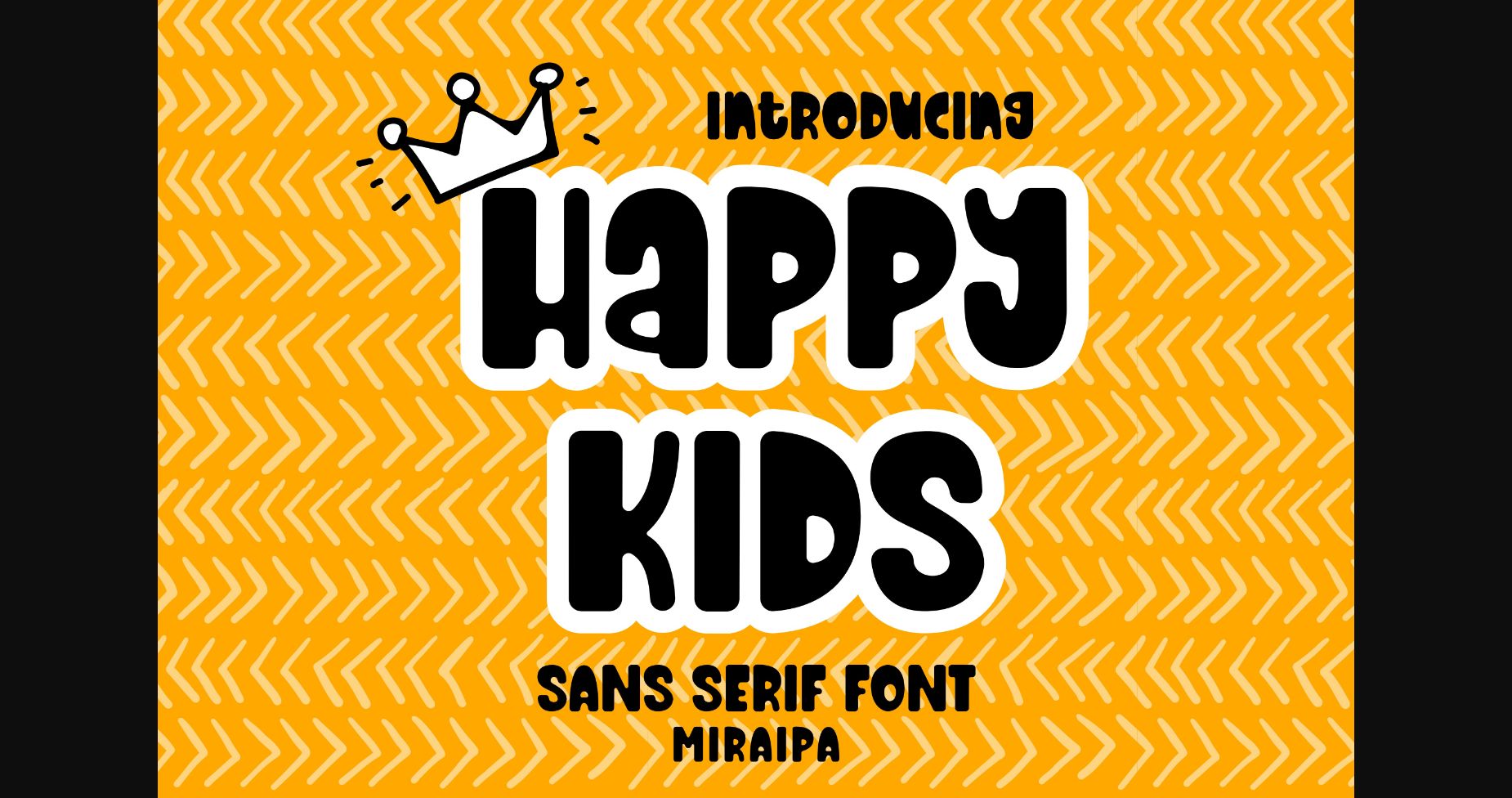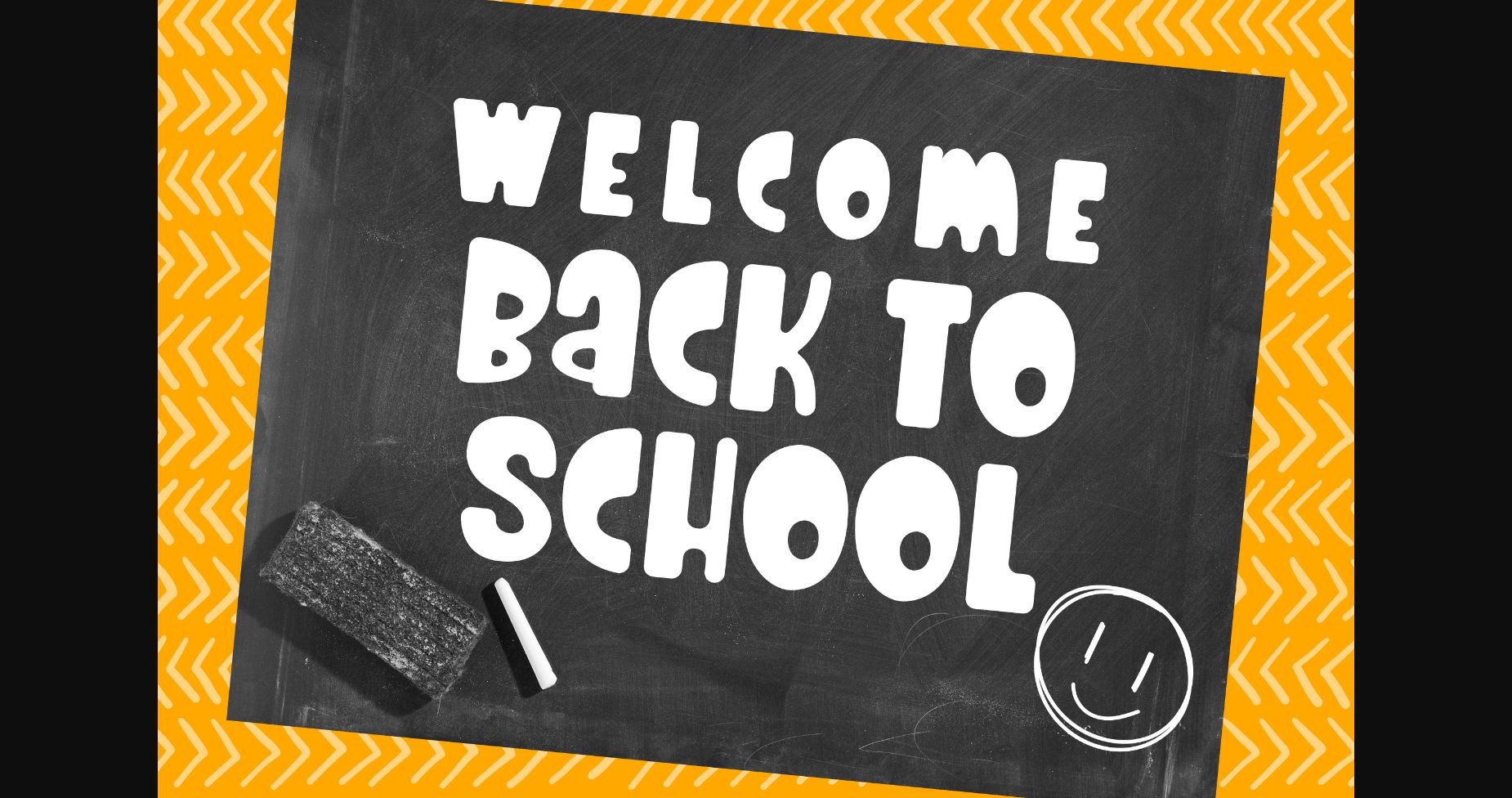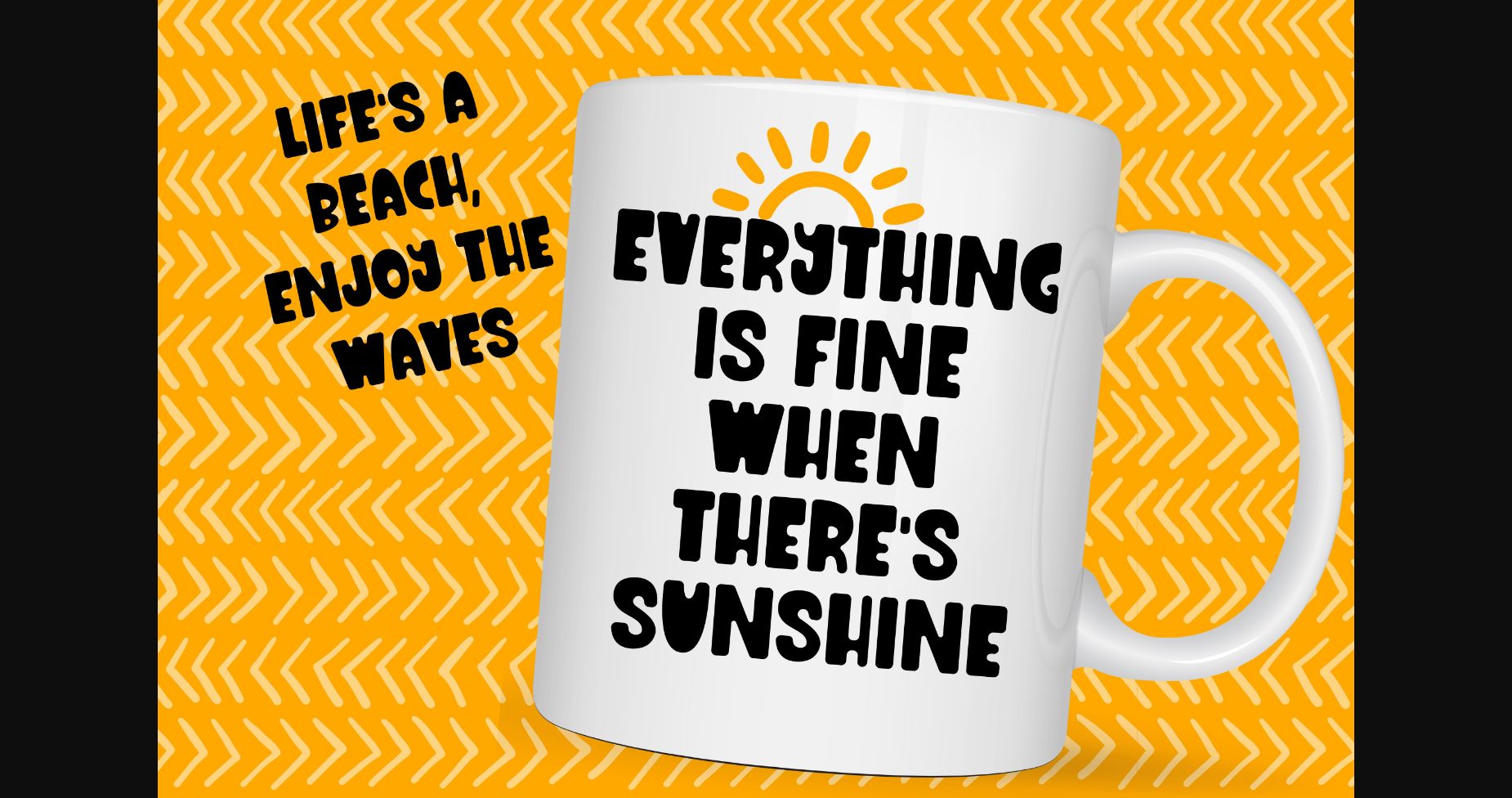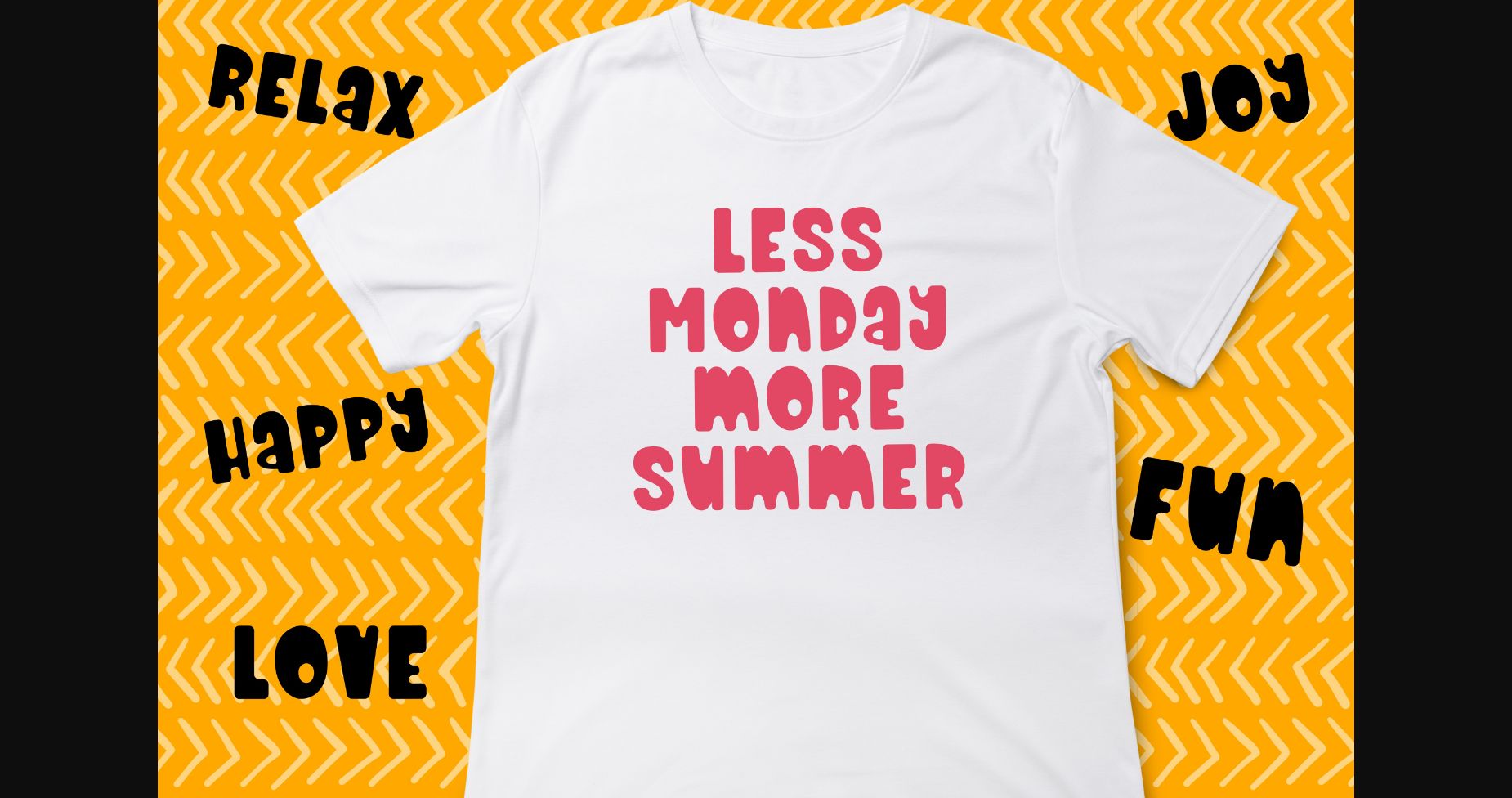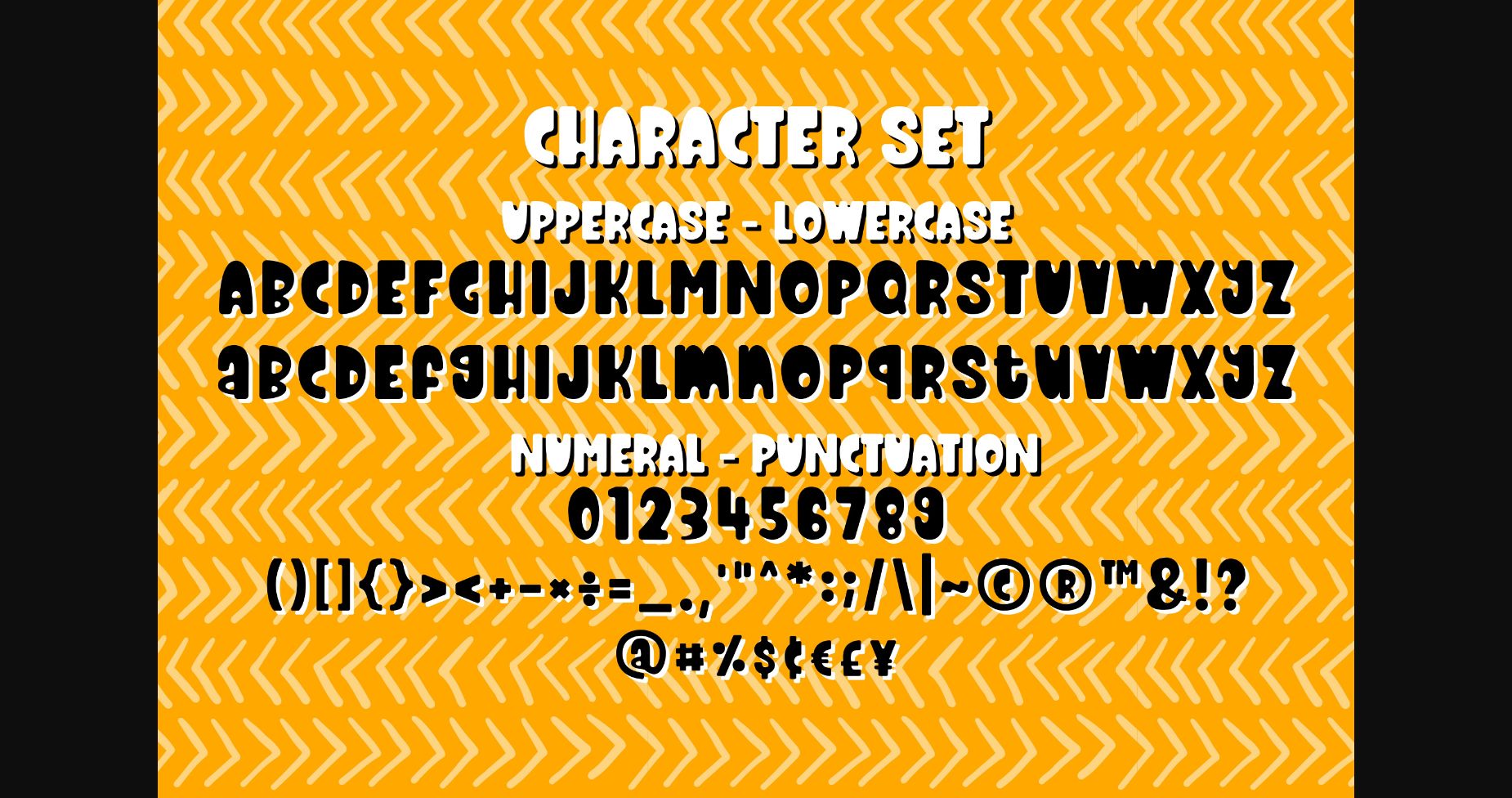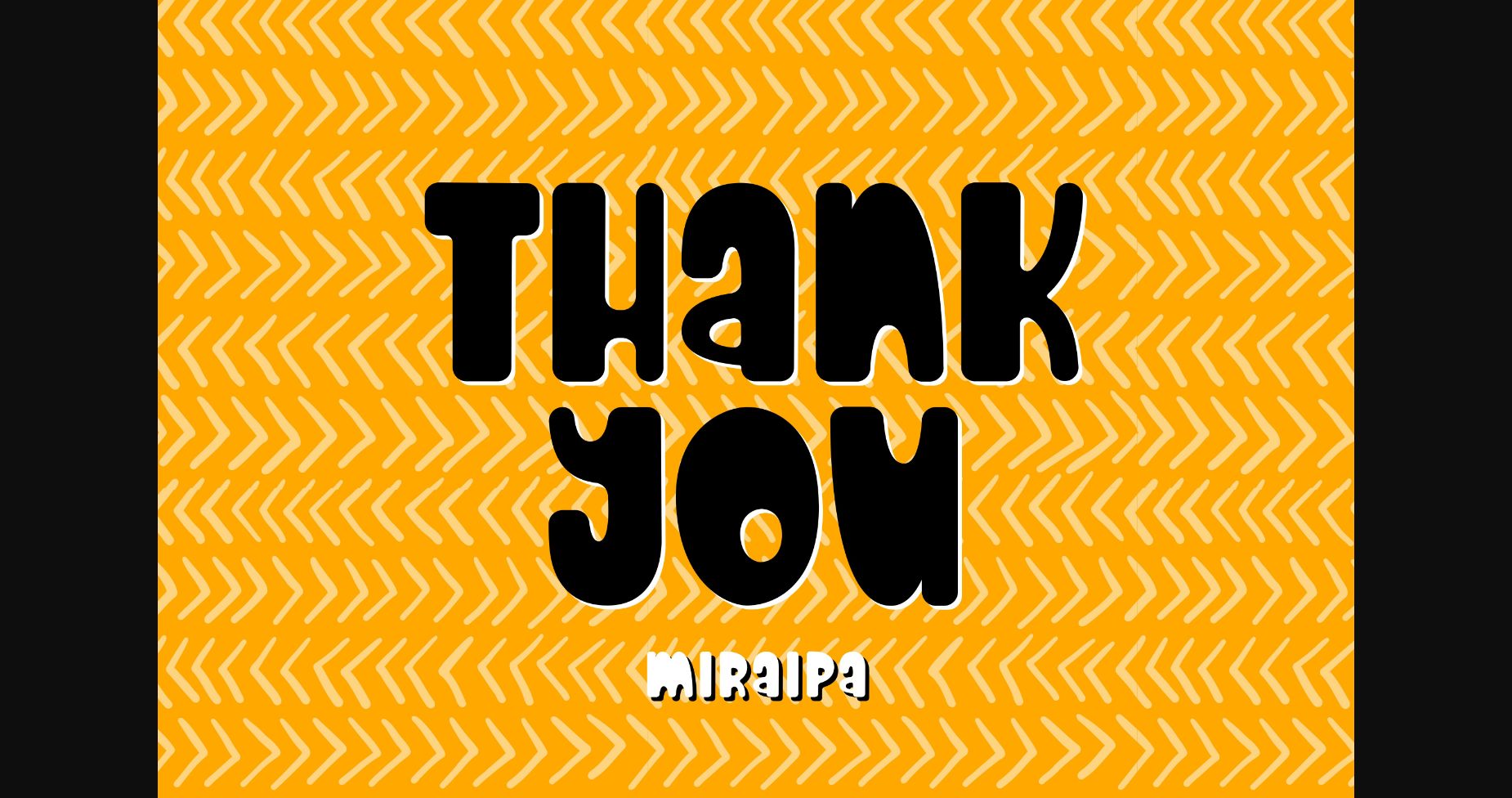
About Happy Kids Font
Happy Kids is designed in a cute and playful sans serif font style. It is charming, whimsical, and a bit quirky. And is the perfect addition to your fun projects.